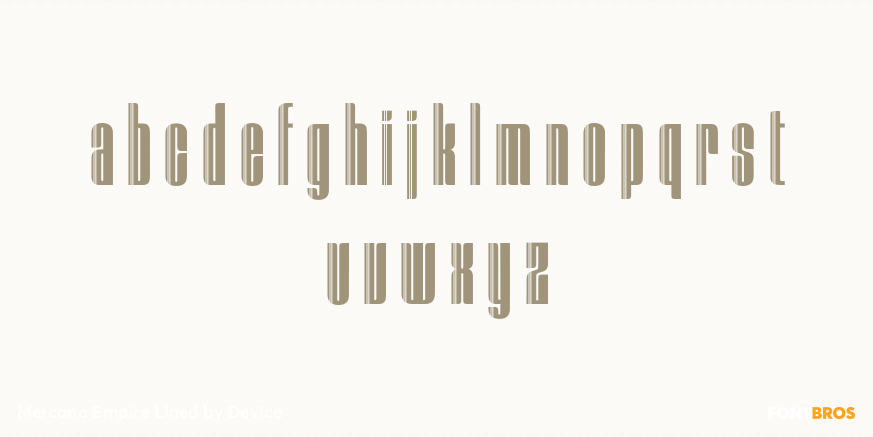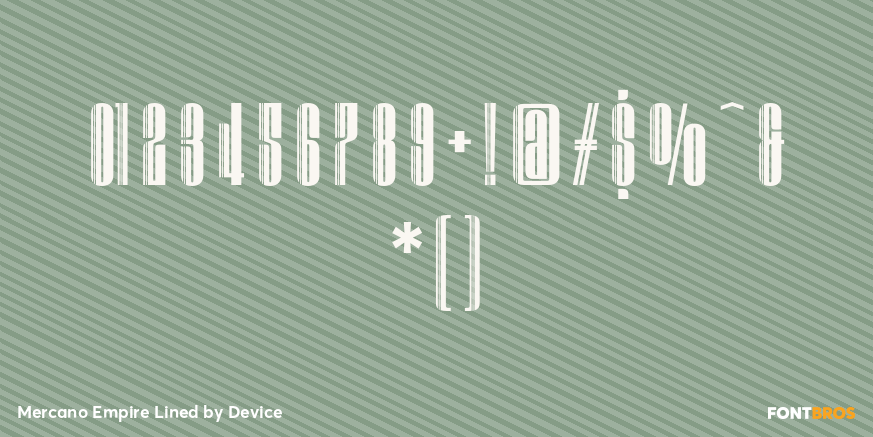
Mercano Empire Lined
Buy NowMercano Empire Lined is a two-style display sans serif with a distinctly Art Deco–inspired, retro-futuristic attitude. Its tall, condensed proportions, geometric construction, and lined inline treatment give it a crisp, high-contrast look that feels both industrial and theatrical.
With regular and italic styles included, this family is well suited to poster work, branding, packaging, and other decorative display settings where you want a strong headline presence. The striped, outlined character adds depth and a subtle 3D illusion, making it a natural fit for bold titles, logos, and graphic-forward layouts that benefit from a stylized, modern edge.